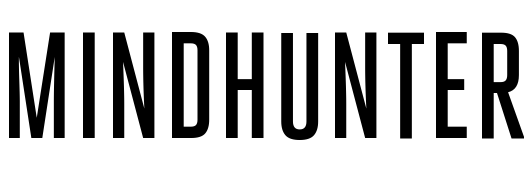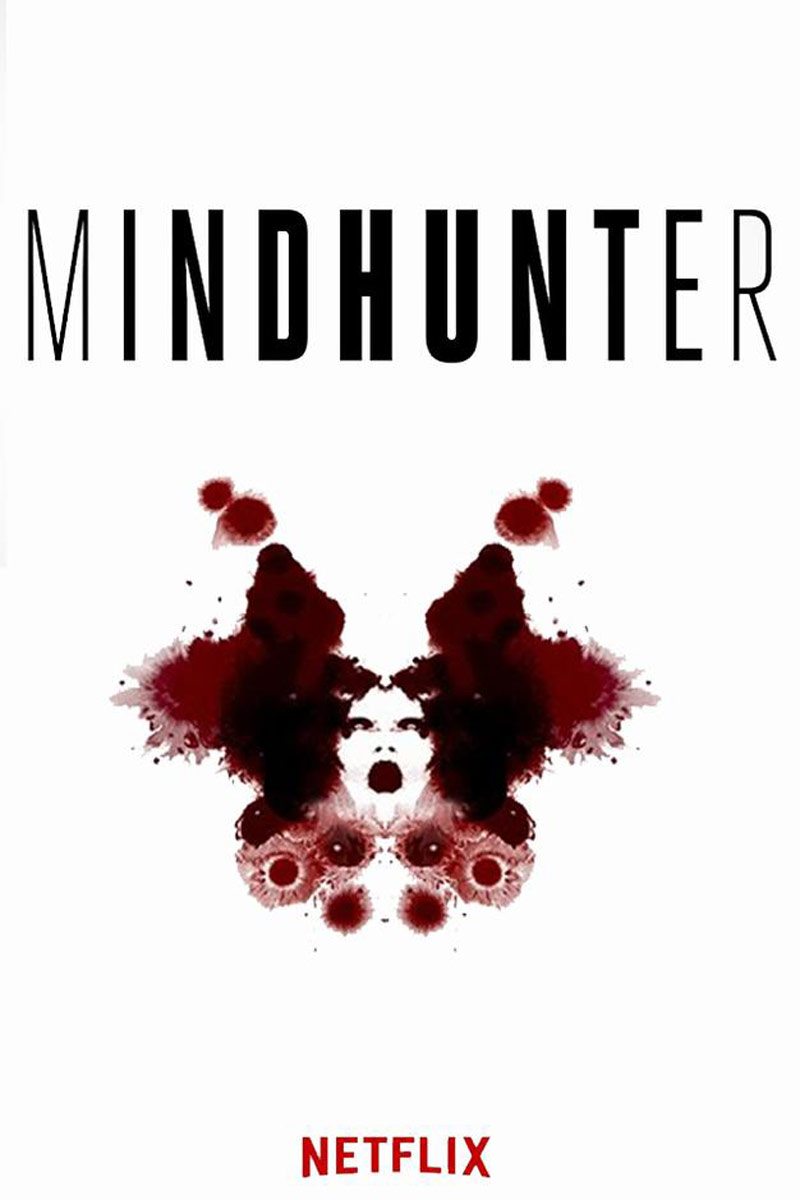
Mindhunter (TV series) Font
CrimeMindhunter is a crime-thriller TV series that follows two FBI agents who interview serial killers to understand and catch active murderers. Based on the true-crime book "Mind Hunter: Inside the FBI's Elite Serial Crime Unit".
The title font of the TV series resembles Heroic Condensed, a narrow sans-serif typeface designed by Silas Dilworth and released by TypeTrust in 2008. The font has 8 weight options, ranging from thin to black, and includes oblique versions.